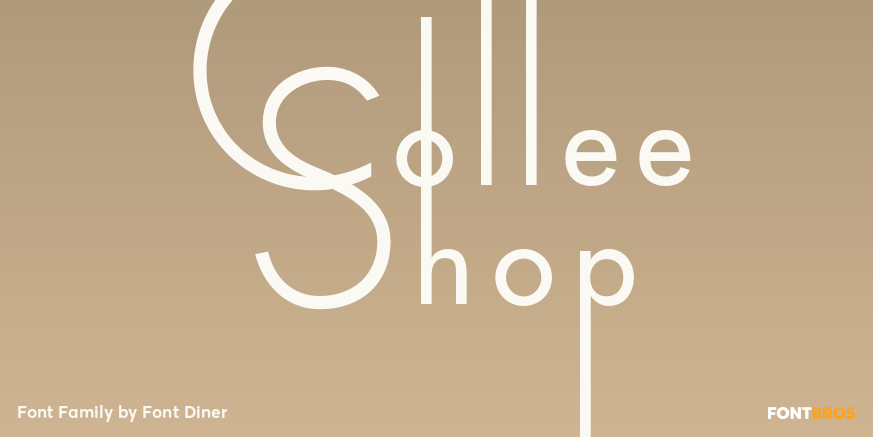
HomeFont BrosArt Deco (1910-1935)Coffee Shop Art Deco (1910-1935)Sans SerifRetro (1936-1965) Coffee Shop FacebookXPinterestWhatsApp 1 of 1 About Coffee Shop Don\’t let fashionable High Society types bring you down, head to the Coffee Shop where you can indulge in a Java-induced getaway for one thin dime!  DOWNLOAD NOW People also explored Rayasha Font Skinny Font Watercolor Font Medusa Font Bones Font Dreaming Font Avionic Condensed Giving Cookies Font Christmas Crafty Fonts Bundle 483 0 TagsCoffee Shop Font Previous articleBiscottiNext articleRoyaume Monogram LEAVE A REPLY Cancel reply Comment: Please enter your comment! Name:* Please enter your name here Email:* You have entered an incorrect email address! Please enter your email address here Website: Save my name, email, and website in this browser for the next time I comment. Personal Use Free Reztop Personal Use Free Read more about this font Salmoni Personal Use Free Read more about this font Vinograd Personal Use Free Read more about this font Makeba Font Personal Use Free Read more about this font BLOG Using Fonts in Digital Marketing: Tips to Strengthen Your Brand Identity In the realm of digital marketing, every visual element plays a crucial role in shaping a brand's identity, and fonts are no exception. The... Modern Sans-Serif Fonts That Brands Love in 2025 The 10 Best Handwriting Fonts to Add Personality to Your Designs 5 Fonts That Will Dominate Design Trends in 2026